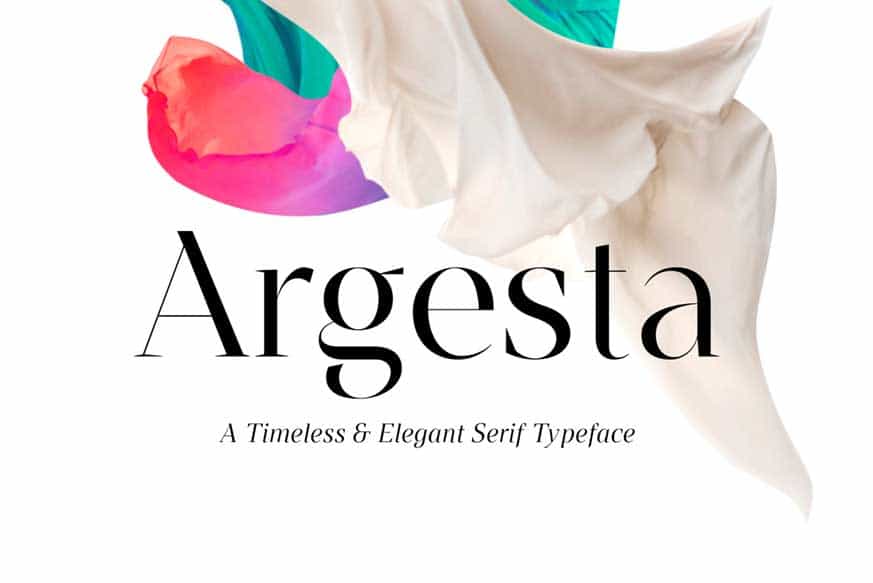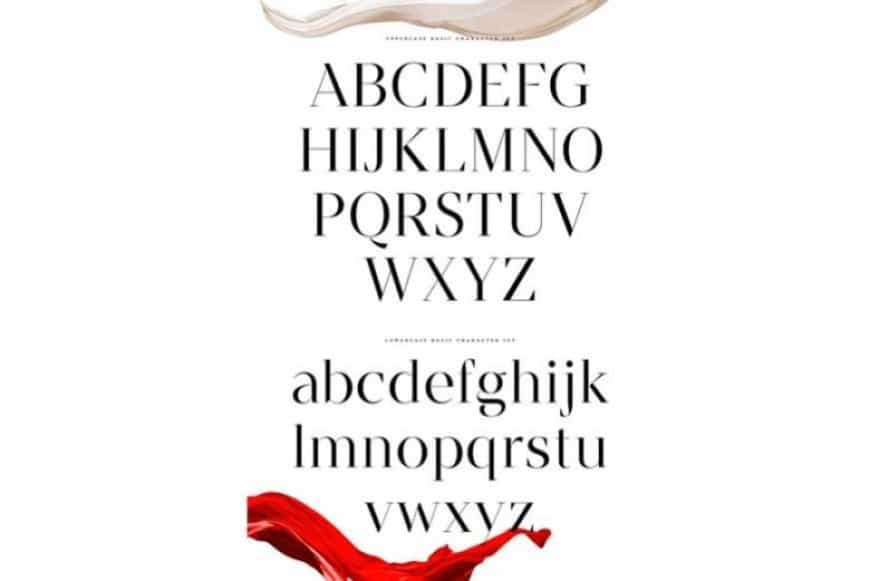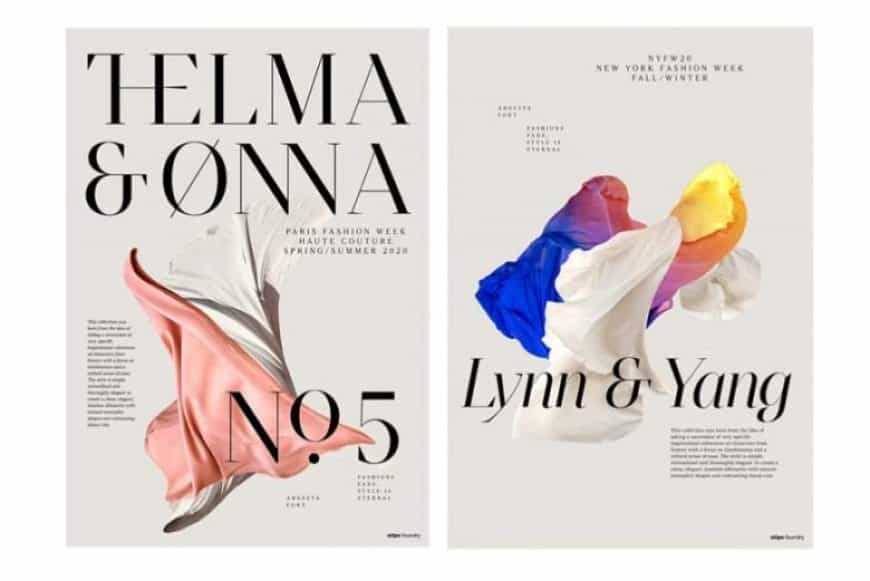
Argesta is a very strong neoclassical serif font family with high contrast. The ideas for this font are of a wide range, from the vintage to the modern era and it is just perfect typeface for an understated, modern, sophisticated look.